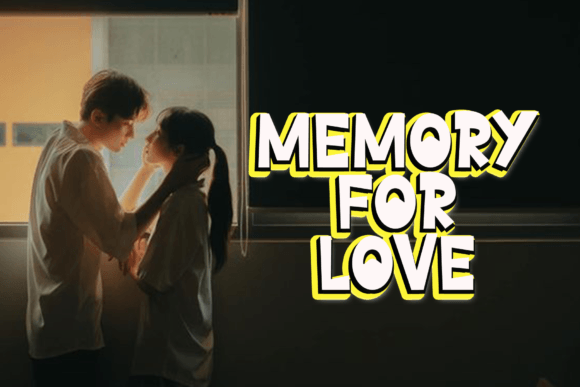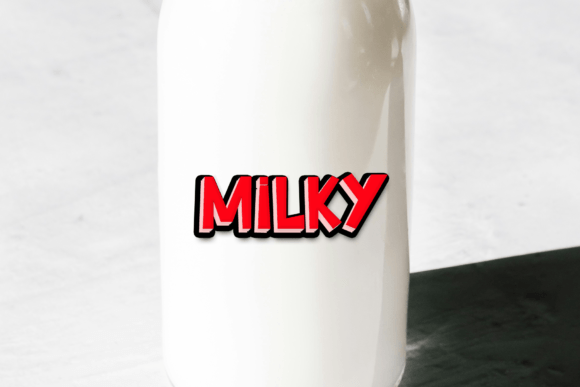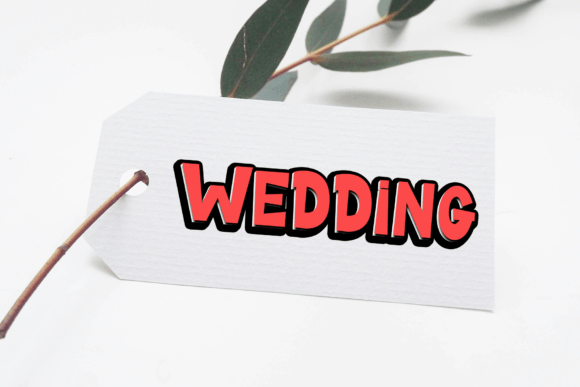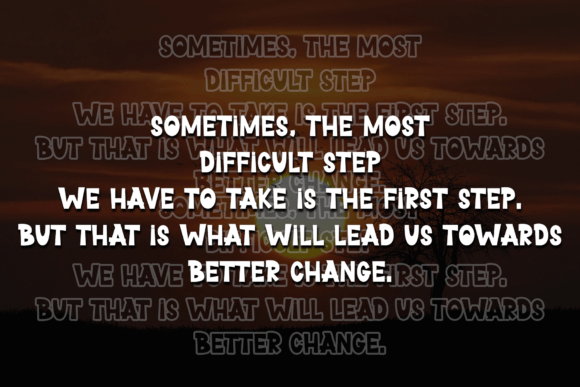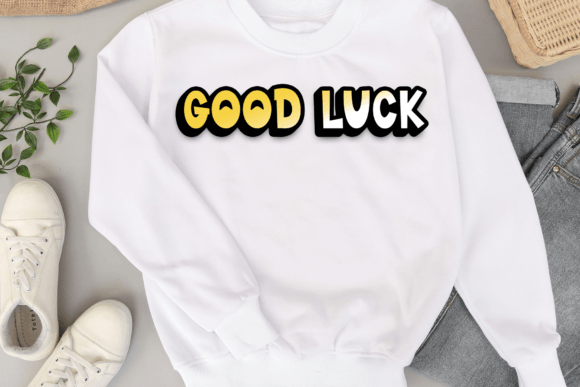
Introducing Good Vibes Font: The Perfect Blend of Freshness and Elegance
Are you tired of using the same old fonts for your design projects? Look no further than Good Vibes Font, a charming display font that embodies the essence of freshness and casual elegance. With its fluid strokes and organic lines, Good Vibes is sure to add a touch of warmth and personality to any design.
The Characteristics of Good Vibes Font
Good Vibes Font is a display font that exudes a laid-back vibe, making it perfect for a variety of design projects. Its key characteristics include:
- Fluid Strokes: Good Vibes Font features fluid strokes that give it a smooth and effortless look.
- Organic Lines: The font’s organic lines add a touch of whimsy and playfulness to any design.
- Casual Elegance: Despite its casual nature, Good Vibes Font still manages to convey a sense of elegance and sophistication.
Uses for Good Vibes Font
Good Vibes Font is a versatile font that can be used for a wide range of design projects, including:
- Branding: Use Good Vibes Font to create a unique and memorable brand identity that stands out from the crowd.
- Invitations: Add a touch of warmth and personality to your invitations with Good Vibes Font.
- Social Media Graphics: Use Good Vibes Font to create eye-catching social media graphics that are sure to grab attention.
- Packaging: Good Vibes Font is also perfect for packaging design, adding a touch of elegance and sophistication to any product.
Benefits of Using Good Vibes Font
So why choose Good Vibes Font for your design projects? Here are just a few benefits:
- Unique Look: Good Vibes Font has a unique look that sets it apart from other fonts.
- Easy to Read: Despite its decorative nature, Good Vibes Font is still easy to read, making it perfect for use in a variety of contexts.
- Customizable: Good Vibes Font is highly customizable, allowing you to adjust the font to fit your specific design needs.
Tips for Using Good Vibes Font
Here are a few tips for using Good Vibes Font in your design projects:
- Use it as a Display Font: Good Vibes Font is best used as a display font, perfect for headings and titles.
- Pair it with Other Fonts: Experiment with pairing Good Vibes Font with other fonts to create a unique and visually appealing design.
- Adjust the Size: Don’t be afraid to adjust the size of Good Vibes Font to create visual interest and hierarchy in your design.
In conclusion, Good Vibes Font is a charming display font that is sure to add a touch of freshness and elegance to any design project. With its fluid strokes, organic lines, and casual elegance, Good Vibes Font is perfect for a wide range of design projects, from branding and invitations to social media graphics and packaging. So why not give Good Vibes Font a try and see the difference it can make in your designs?
Here are a few frequently asked questions about Good Vibes Font:
- What type of font is Good Vibes Font? Good Vibes Font is a display font.
- Is Good Vibes Font easy to read? Yes, despite its decorative nature, Good Vibes Font is still easy to read.